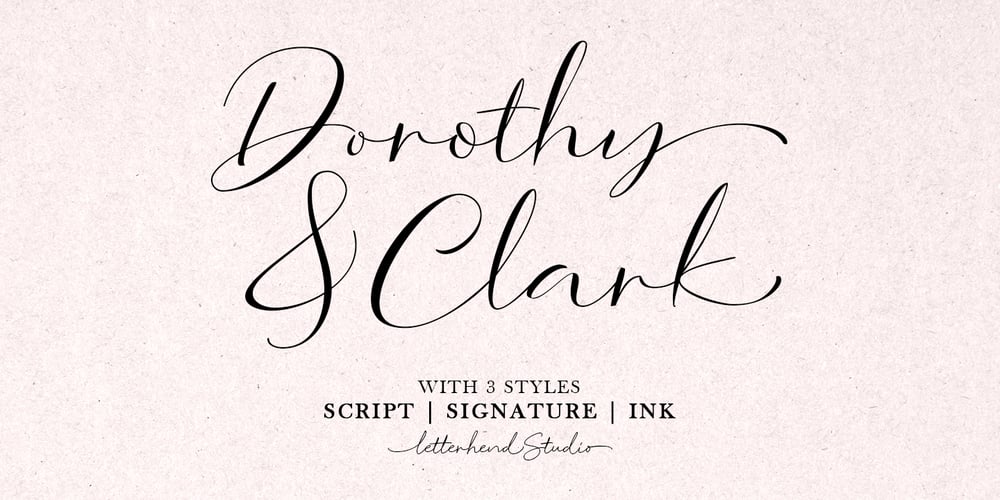
Dorothy Clark Font Family was designed by Hendry Juanda and published by Letterhend. Dorothy Clark contains 3 styles and family package options. Dorothy Clark Script is a stylish script comes with 3 styles, regular script, signature script and ink script. This typeface has unique opentype feature as you can see the explanation at 2nd preview image. This font perfectly made to be applied especially in logo, and the other various formal forms such as invitations, labels, logos, magazines, books, greeting / wedding cards, packaging, fashion, make up, stationery, novels, labels or any type of advertising purpose. This font comes with 3 style, Regular script that gives you the weight of calligraphy feel, Signature that gives you a consistent stroke with the same weight, and ink to add handfcrafted inky feel. All of them just in one font!Features : uppercase & lowercase numbers and punctuation multilingual ligatures alternates swashes PUA encoded contextual alternate We highly recommend using a program that supports OpenType features and Glyphs panels like many of Adobe apps and Corel Draw, so you can see and access all Glyph variations.Email us to letterhend@gmail.com if you need something! Happy Designing!